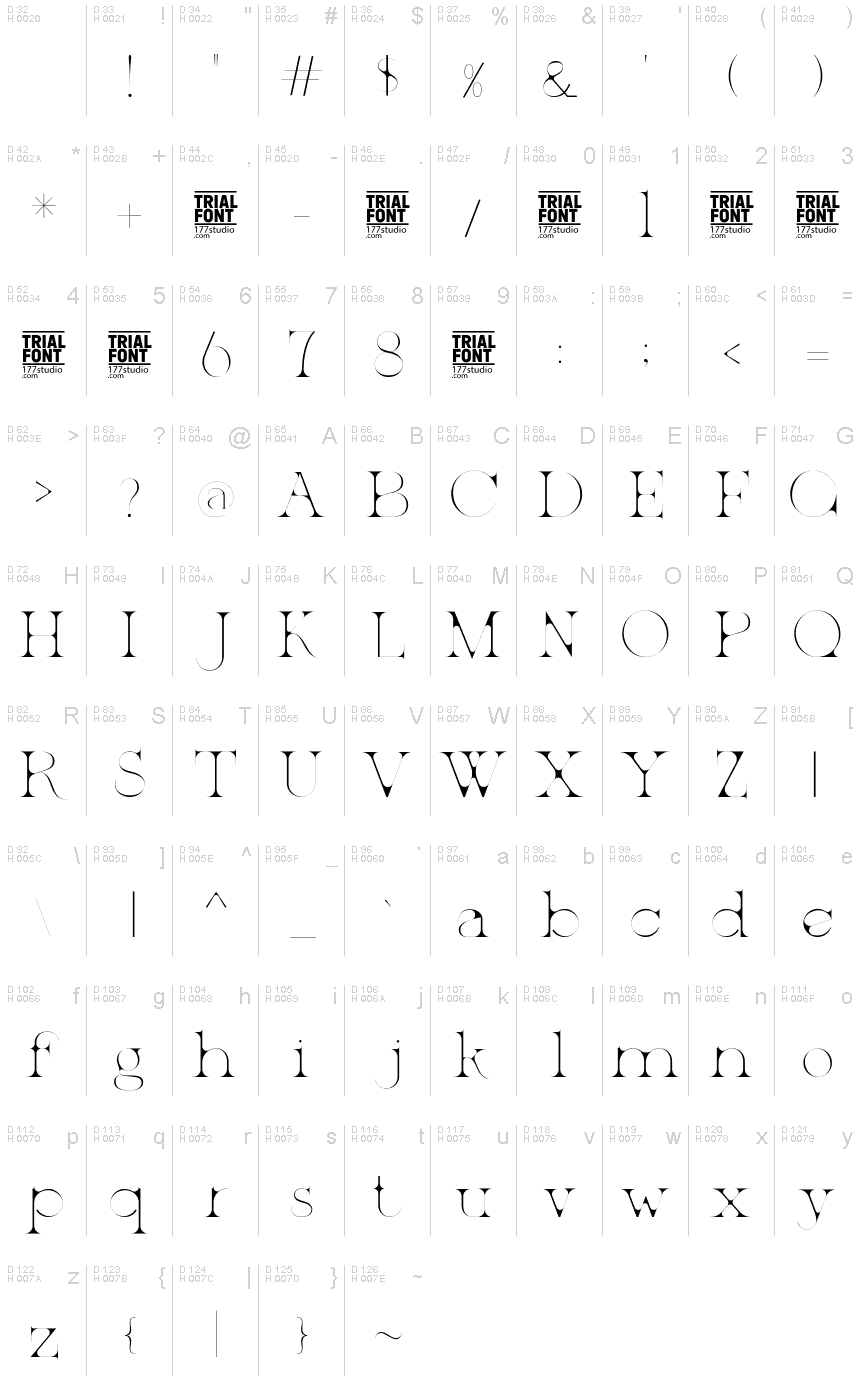
Patented Ramesh Demo Regular
Patented Ramesh, crafted by the skilled hands at 177Studio, is a serif font that stands out with its semi-light weight and semi-expanded width. This typeface exudes a classic elegance with modern sensibilities, making it a versatile choice for designers looking to imbue their projects with both traditional charm and contemporary flair.
The serifs are tastefully designed to add a touch of sophistication, while the semi-light weight ensures readability without sacrificing style. Its semi-expanded width offers an inviting spaciousness that enhances legibility and aesthetic appeal.
Whether you're creating editorial content, branding materials, or sophisticated invitations, Patented Ramesh offers an air of refinement that elevates your design work. Its harmonious balance between old-world elegance and modern-day finesse makes it an excellent candidate for an array of creative endeavors.